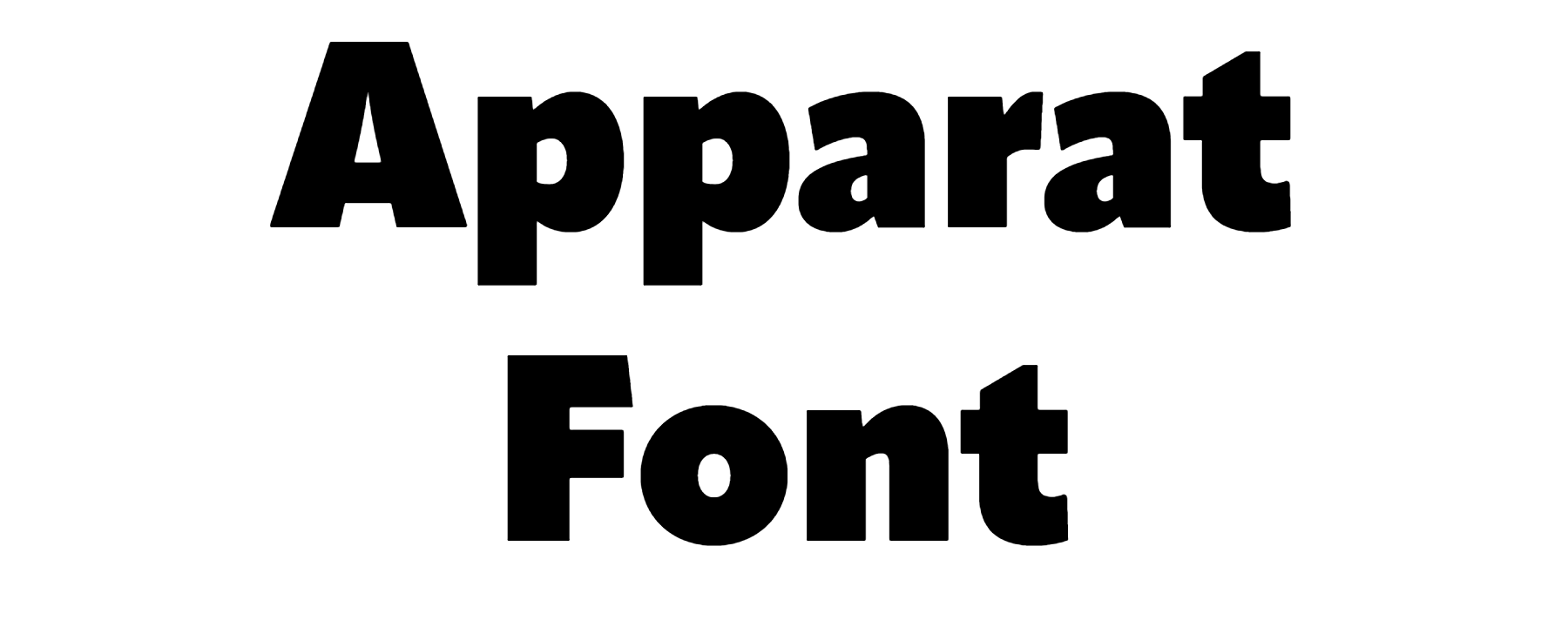
Apparat refers to two major, highly sophisticated sans-serif type systems in modern typography. The most dominant releases under this name are the Apparat geometric-humanist mega-family by Lettersoup and the KMR Apparat retro-broadcast typeface by Kimera Corp.
Apparat
Apparat is a sans serif font created by Botio Nikoltchev and released through lettersoup (2017).
Apparat Font Details
- Designer: Botio Nikoltchev
- Publisher: lettersoup
- Font styles: 12 (Hairline, Hairline Italic, Extralight, Light, Extralight Italic, Light Italic, Medium, Black, Black Italic, Heavy, Heavy Italic and Italic)
- Weights: Thin (100) to Black (900)
- Glyphs: 941 in the Hairline style
- OpenType features: Ligatures, 2 stylistic sets, small caps, old-style numbers and fractions